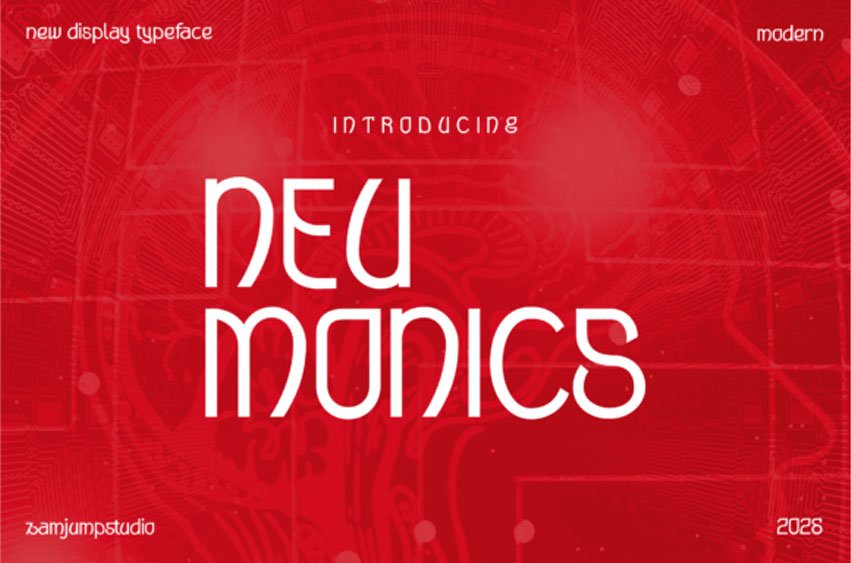
Neumonics Font
Neumonics Font Step into the digital future with Neu Manics, a cutting-edge display typeface designed for a new era of visual communication. This font features elongated, high-contrast letterforms with an “electronic-vanguard” soul, blending sharp verticality with fluid, orbital curves.
With its sleek, technical aesthetic and professional weight, Neu Manics is the premier choice for tech startup branding, cyberpunk-themed game titles, high-end electronics packaging, and commanding “futurist-aesthetic” social media headers.